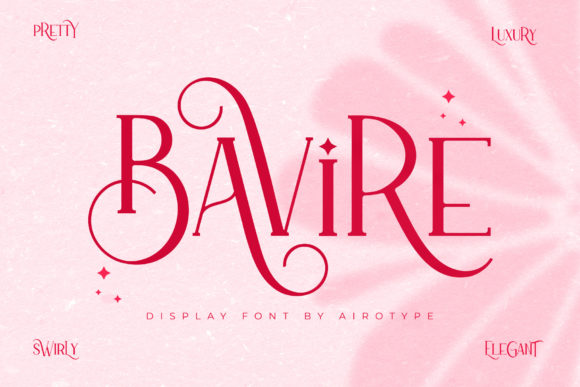
Introducing Bavire Font, the epitome of elegance and style in the world of serif fonts. Created by airotype, this font is a true gem that will elevate your design projects to new heights. Are you ready to discover the beauty and versatility of Bavire?
With Bavire Font, you have the power to enhance any project effortlessly. Whether you are designing a logo, creating stunning graphics, or crafting a captivating website, this font is your secret weapon. Its PUA encoding allows you to unlock a treasure trove of glyphs and swashes, giving you endless creative possibilities.
Imagine the impact Bavire Font will have on your beauty product branding. Let the curves and strokes of each letter convey a sense of elegance, sophistication, and refinement. Your customers will be instantly drawn to your brand, captivated by the sheer beauty of this font. It will be a visual treat for their eyes, leaving a lasting impression.
But Bavire Font is not just visually stunning; it is also incredibly easy to use. With its user-friendly nature, incorporating this font into your projects becomes a breeze. Say goodbye to hours of frustration and hello to smooth and seamless design experiences. Bavire Font empowers you to express your creativity without limits.
What sets Bavire Font apart from the rest is its ability to evoke emotion. Each letter is meticulously crafted to evoke feelings of luxury, grace, and charm. Your audience will be entranced by the captivating aura of your designs, unable to resist its allure. Prepare to make a lasting impact on their hearts and minds.
Don't settle for ordinary fonts when you can have the best fonts for beauty products. Bavire Font is a game-changer that will set you apart from your competitors. Its uniqueness and sophistication will speak volumes about your brand's commitment to excellence. Stand out from the crowd and leave a lasting impression on your target audience.
In conclusion, Bavire Font is the epitome of elegance and style in the world of serif fonts. Its PUA encoding, combined with its captivating beauty, makes it an irresistible choice for any design project. Unlock your creativity, captivate your audience, and elevate your brand to new heights with Bavire Font. Try it today and witness the magic unfold!